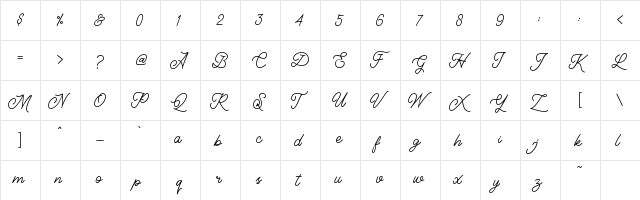
Classical Regular
| Designer | Malik Wisnu |
Design Context for Classical Typeface
Classical wears its vintage influences proudly, with letterforms that recall mid-century signage, classic packaging, and nostalgia-driven design.
Font Pairing: Combine Classical with a simple slab or neutral sans — period-accurate companions reinforce the vintage feel without competing for attention.
Pro Tip: Use Classical for headlines and pull quotes rather than body copy — its personality is best appreciated in short, focused bursts.